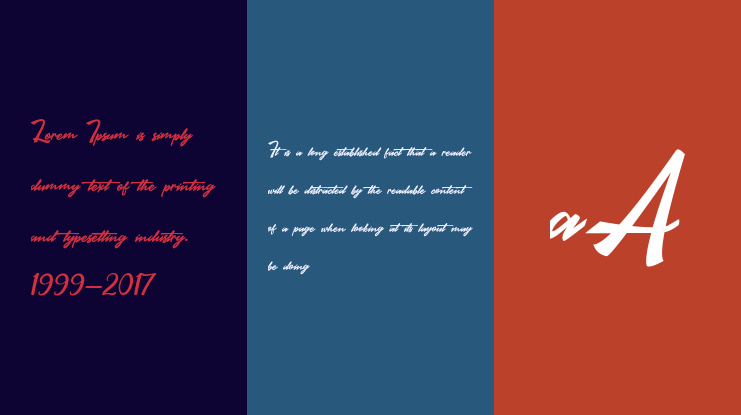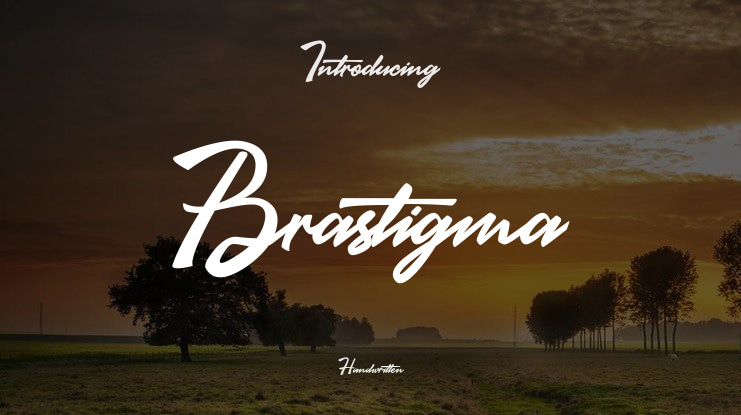
Brastigma Font
Introducing Brastigma a Signature Font that adds a elegant, versatile touch to everything from branding and social media to invitations and packaging.